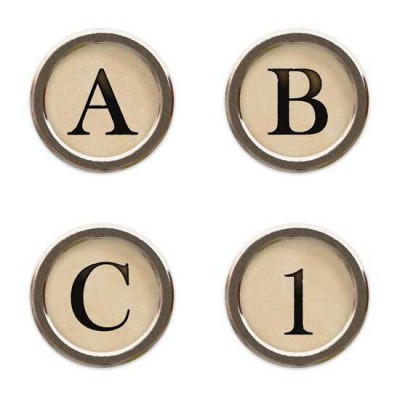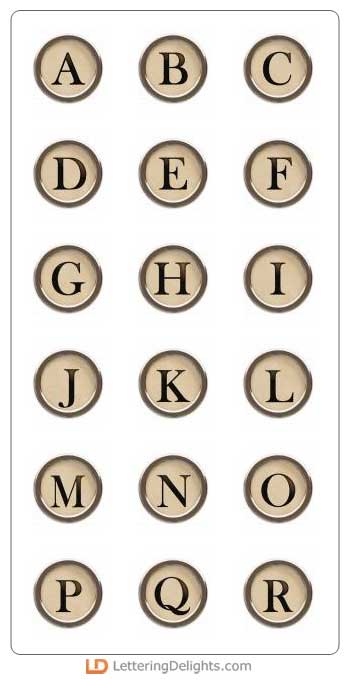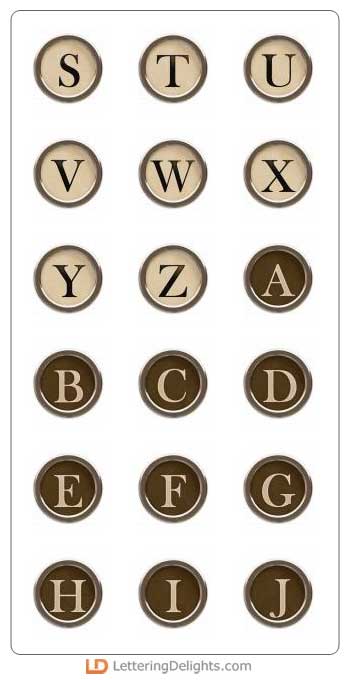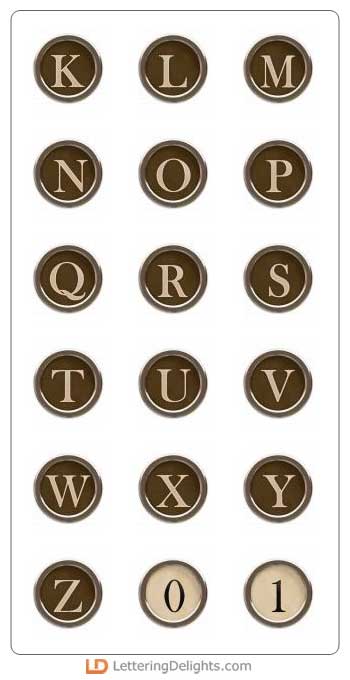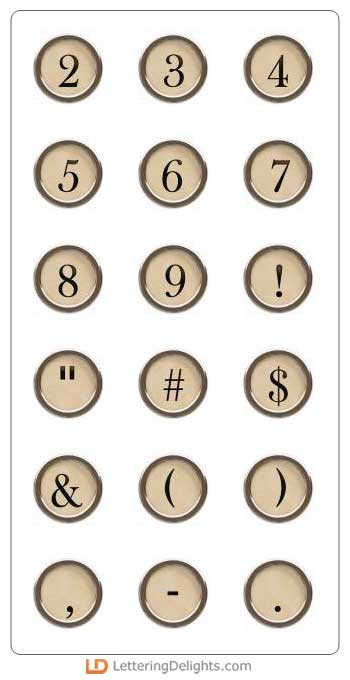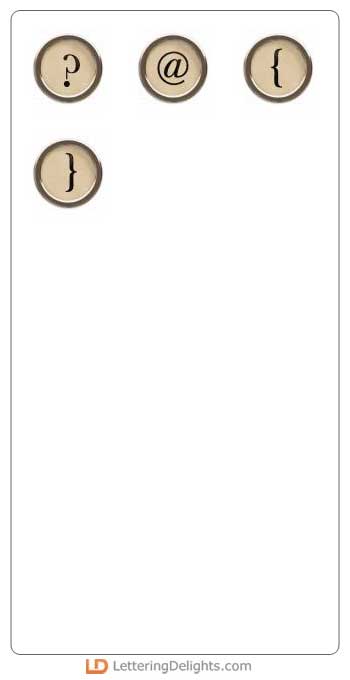
I hope we never forget the feel and sound of an old typewriter (thankful for computers and the backspace key, however!). Add a bit of "days gone by" to your creations with the Antique Type Alphabet.